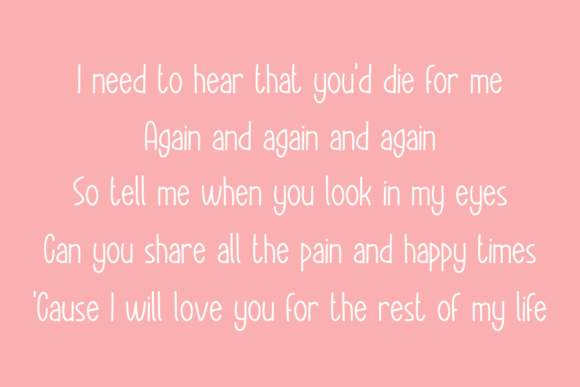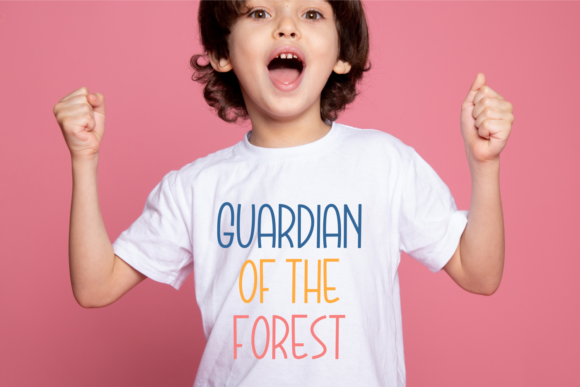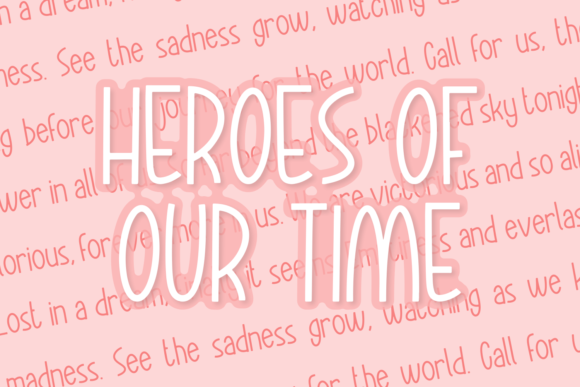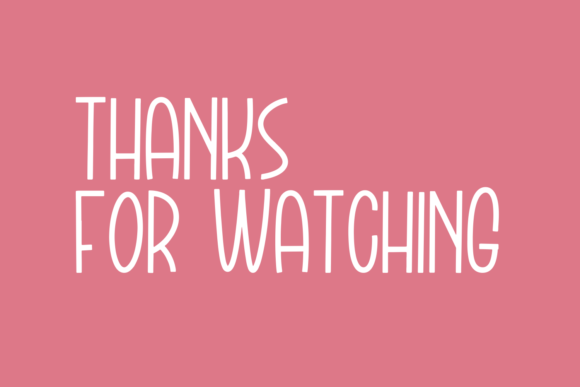
About Swagstie Font
Swagstie is a fancy and elegant handcrafted font that was created to impress your audience and make your branding shine.
Make your projects dance with this elegant and wonderful font wherever you use it.